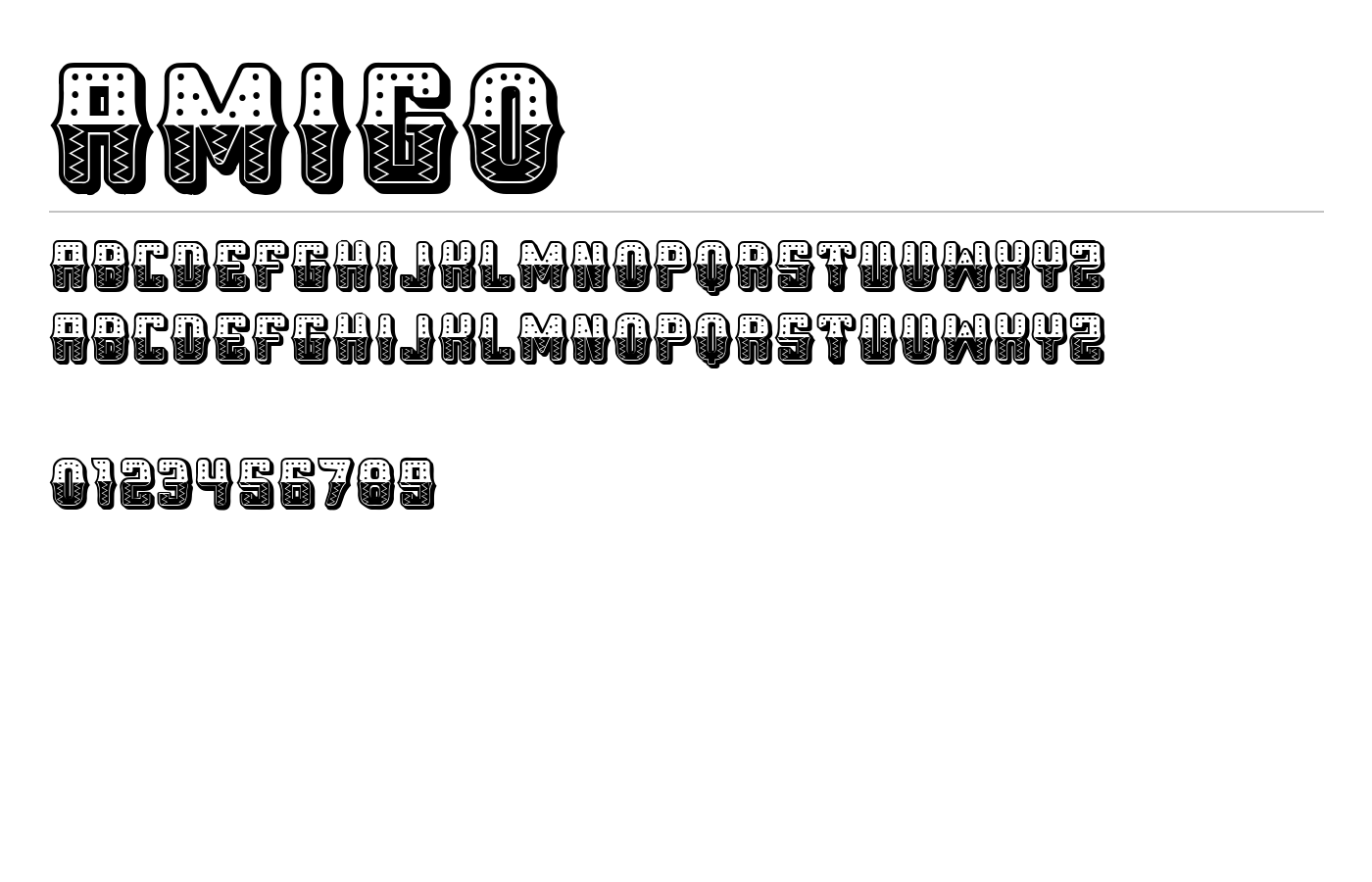
Amigo Font is a bold, decorative display typeface with a playful and tribal-inspired design. Its thick, blocky letters feature intricate patterns and a strong outline that give it a lively, eye-catching personality, making it perfect for headlines, posters, and branding that wants to convey energy and uniqueness. This font works well where a fun, informal vibe is desired, adding character and charm to creative projects.
Amigo Font
About Amigo Font
| Font family | Amigo Font |